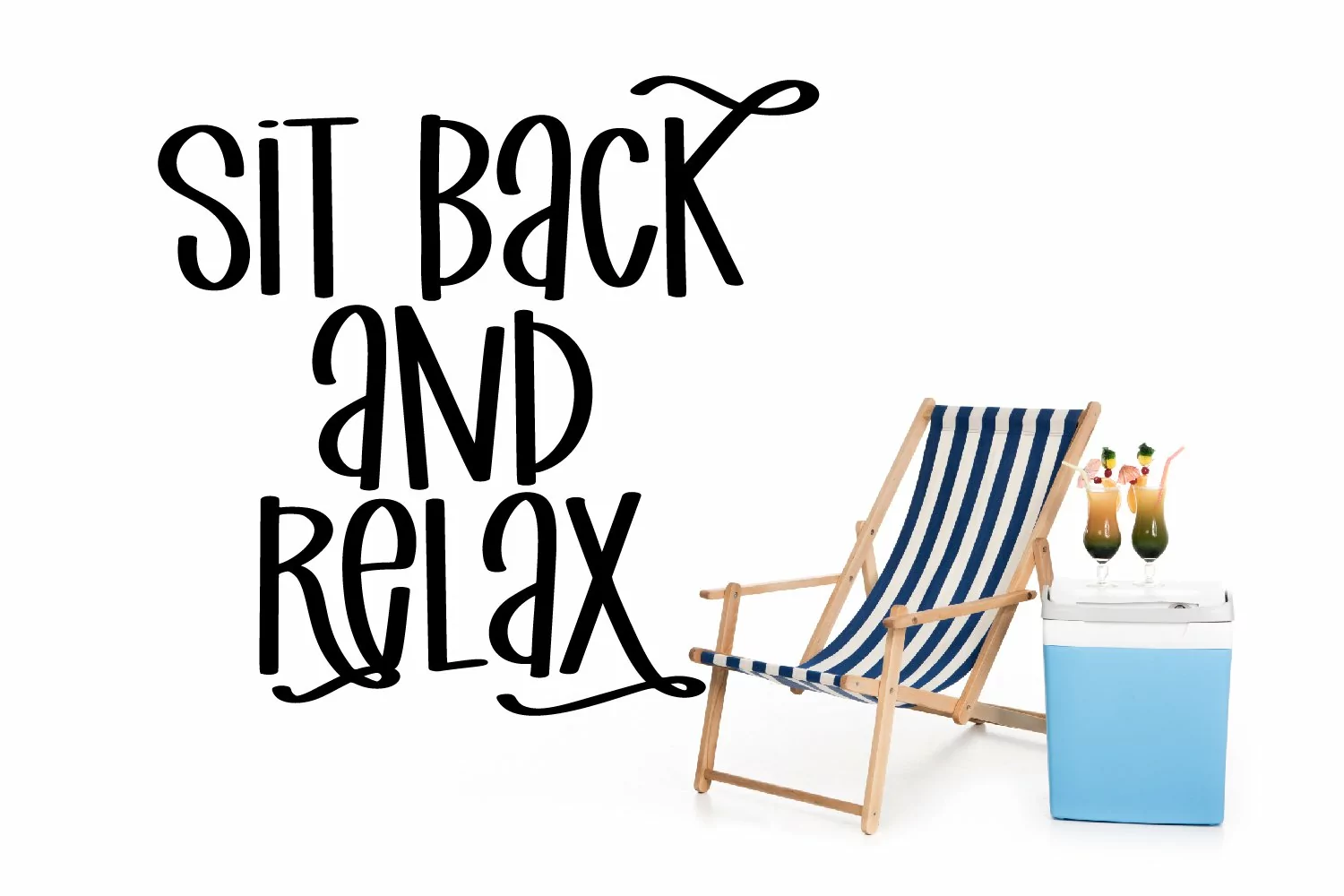
Necharmfly - A Swooshy Marker Font
Flourished alternative letters are the caps - so no extra software is needed. Just type in what you need in lower case and adjust things to upper case as you'd like the swooshes.
For example - title card is typed NecHarMflY